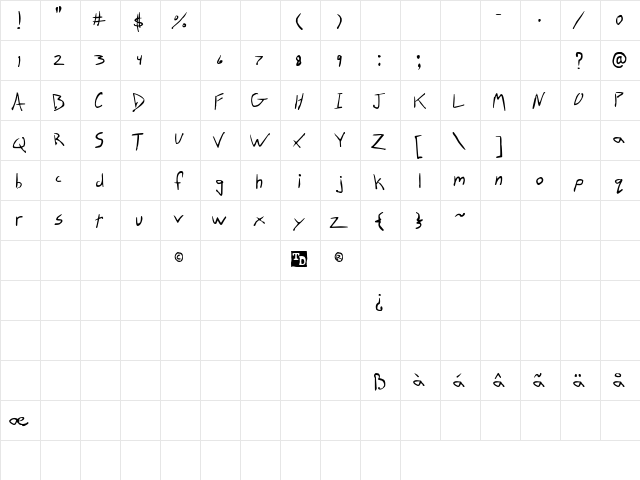
Tritto Trial Version
Design Context for Tritto Typeface
Tritto is a composed and adaptable typeface that performs quietly and consistently across a wide range of design contexts.
Pro Tip: Pair Tritto with a font of contrasting weight or personality to build a more expressive typographic hierarchy.